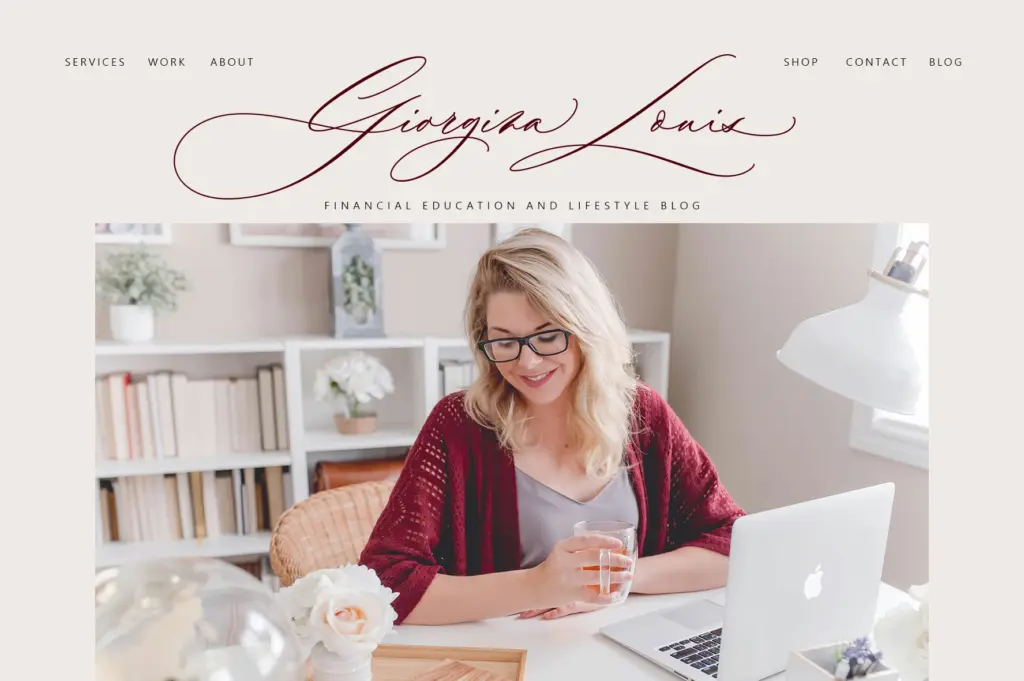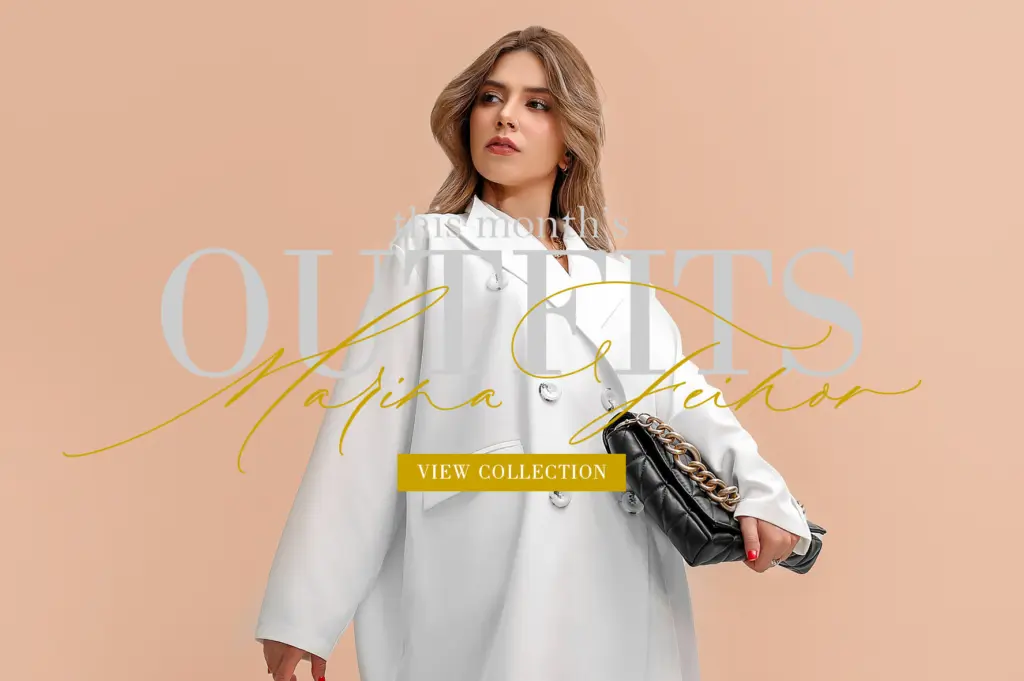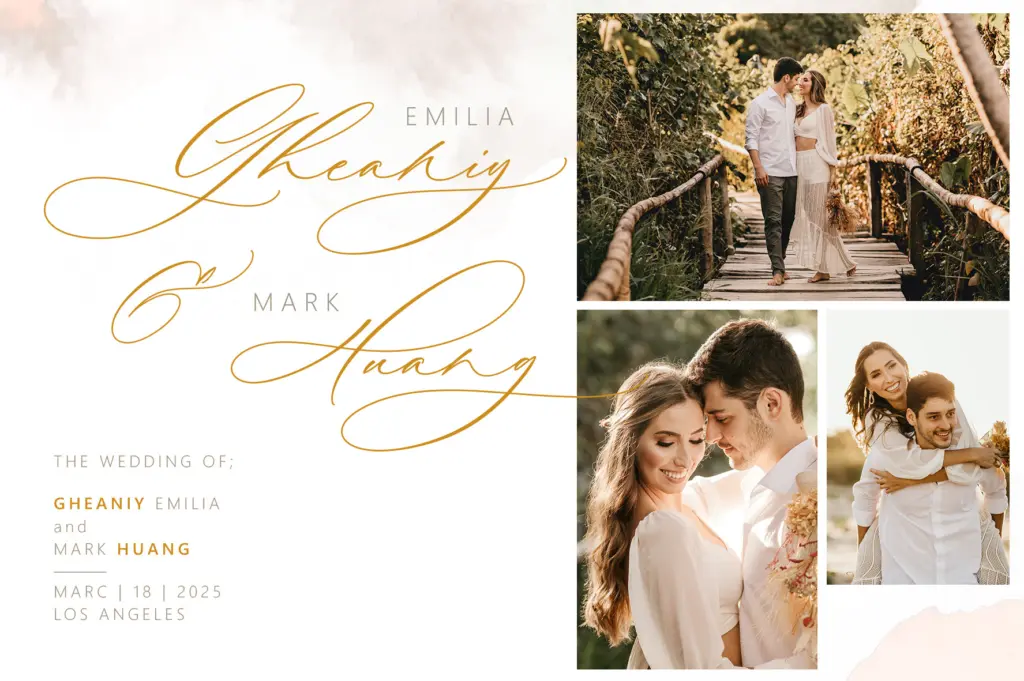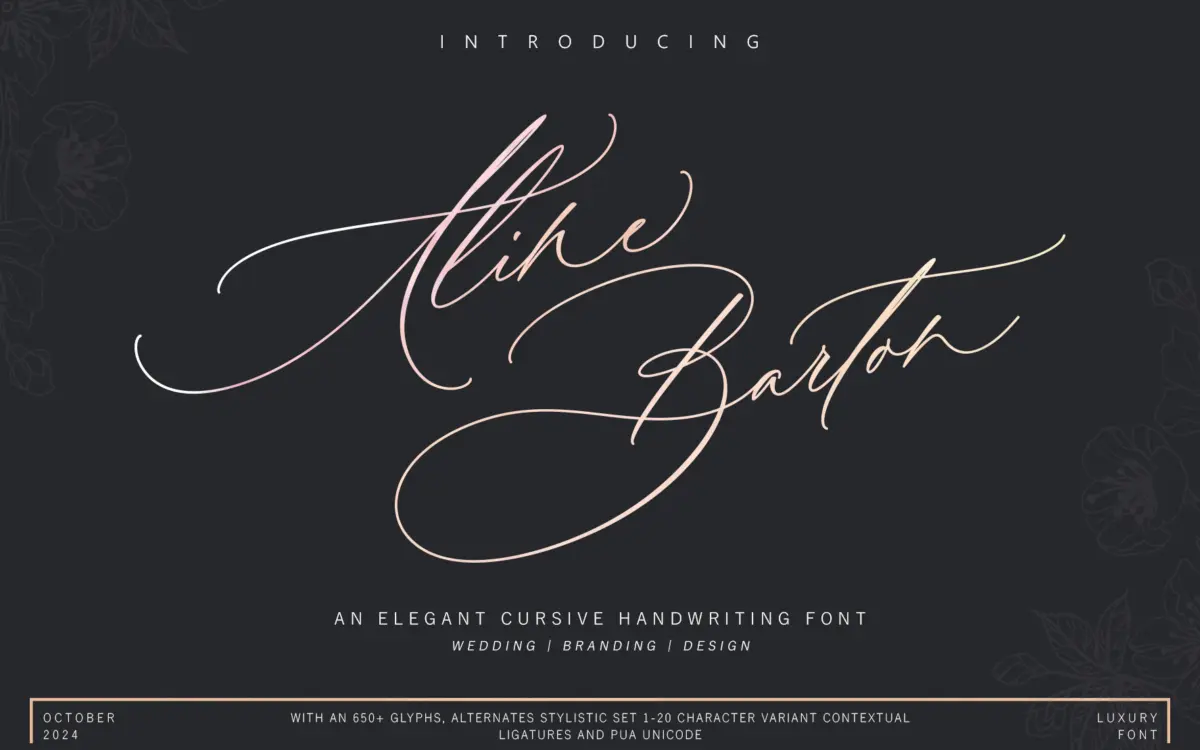
Aline Barton belongs to the crowded family of brush-flavoured connecting scripts, but it leans harder into ornament than most. The lowercase has a loose, slightly forward slant with variable stroke contrast that reads as pen-drawn rather than mechanically brushed. Where it distinguishes itself is in the swash work: entry and exit strokes on many letters extend well beyond the x-height, curling into flourishes that are clearly meant to be seen, not just used as connectors. The two uppercase styles give you a choice between a plainer capital for restrained settings and a more theatrical one for titling. Baseline movement is gentle rather than erratic, so words still sit on a believable line even when individual letters swing wide. It is a font built for decoration first and quiet utility second.
The glyph count here is substantial, with over 650 characters and a spread of OpenType features — swash, stylistic sets numbered into the double digits, stylistic alternates, and contextual alternates that swap letterforms automatically based on neighbouring characters. That contextual layer matters for a script this ornamented, because it reduces the chance of two flourishes colliding mid-word. PUA Unicode encoding means every alternate is reachable even outside a full OpenType environment, through Character Map or Font Book, which is a practical touch given how many buyers of scripts like this are working in Word or Canva rather than Illustrator. International language and symbol support is included, along with standard punctuation and numerals. The tradeoff of all this generosity is that the font rewards — almost requires — some manual glyph selection. Left on default settings, the natural exuberance of the design can tip into visual noise, especially in longer words where multiple swash characters land close together. Getting the best out of it means dipping into the stylistic sets rather than typing and walking away.
This is a short-word typeface. Names, single words on invitations, logotypes, monogram-style branding marks, greeting card sentiments — these are the settings where the swash energy reads as intentional rather than cluttered. Wedding stationery and boutique branding are the obvious homes, and the two uppercase options give some flexibility between a name card and a larger poster treatment. It is less suited to anything that needs to run as continuous text: paragraph-length copy, quotes set across multiple lines, or body text in editorial layouts will fight the letterforms’ width and flourish. Designers should also budget generous line spacing and letter spacing when using the taller swash variants, since ascenders and descenders can collide across lines if set tightly. Pair it with a plain sans or a quiet serif for supporting text, and keep Aline Barton itself reserved for the one or two words that need presence.
- Contextual alternates cut down on swash collisions in connected words
- PUA encoding makes the huge glyph set accessible even without Illustrator or InDesign
- Two uppercase styles give some range between restrained and theatrical settings
- Default typing without manual glyph selection can look cluttered in longer words
- Not suited to paragraph or body text — legibility drops fast at small sizes and in dense settings
Aline Barton is a decorative script that does one job well: short, expressive words with room to flourish. It asks for manual glyph work to look its best and isn't built for long-form text, but for invitations, logos and branding marks it delivers genuine character.